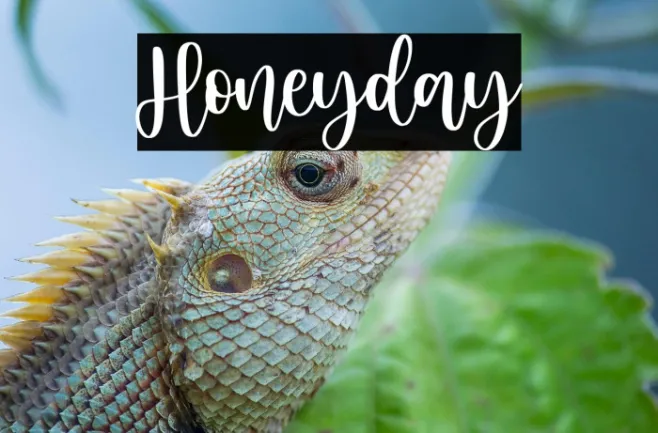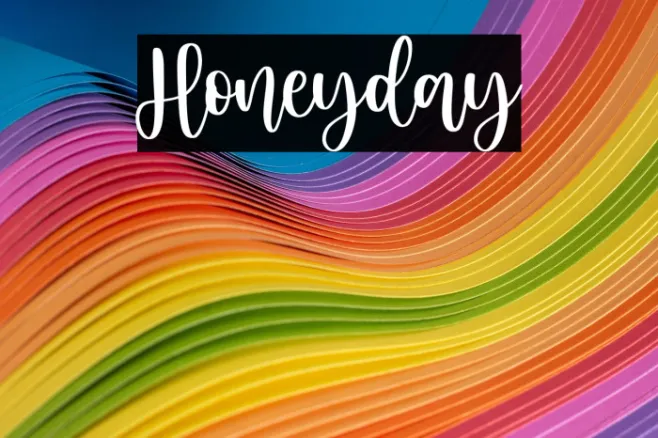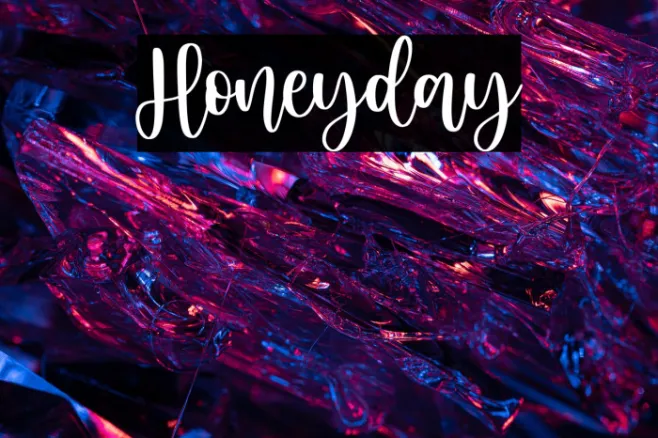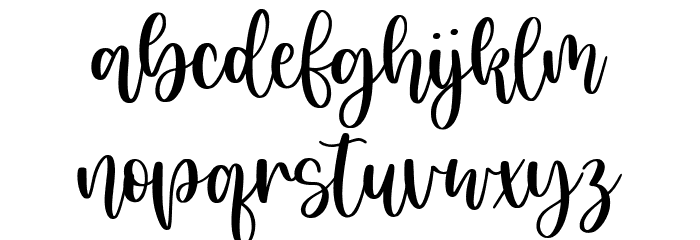
Honeyday Font
Honeyday Description
This font features a playful and elegant script style with a handwritten appearance. The letters are connected, giving it a fluid and continuous look. The uppercase letters are bold and prominent, while the lowercase letters maintain a consistent flow with slightly exaggerated loops and curves. The numbers and special characters complement the overall style, maintaining the same whimsical and artistic flair. This font is perfect for adding a personal touch to any design, with its charming and inviting aesthetic.
Use CaseLogos, Invitations, Greeting Cards
Proposed ProjectsIdeal for wedding invitations, greeting cards, logos, and branding materials that require a personal and artistic touch.